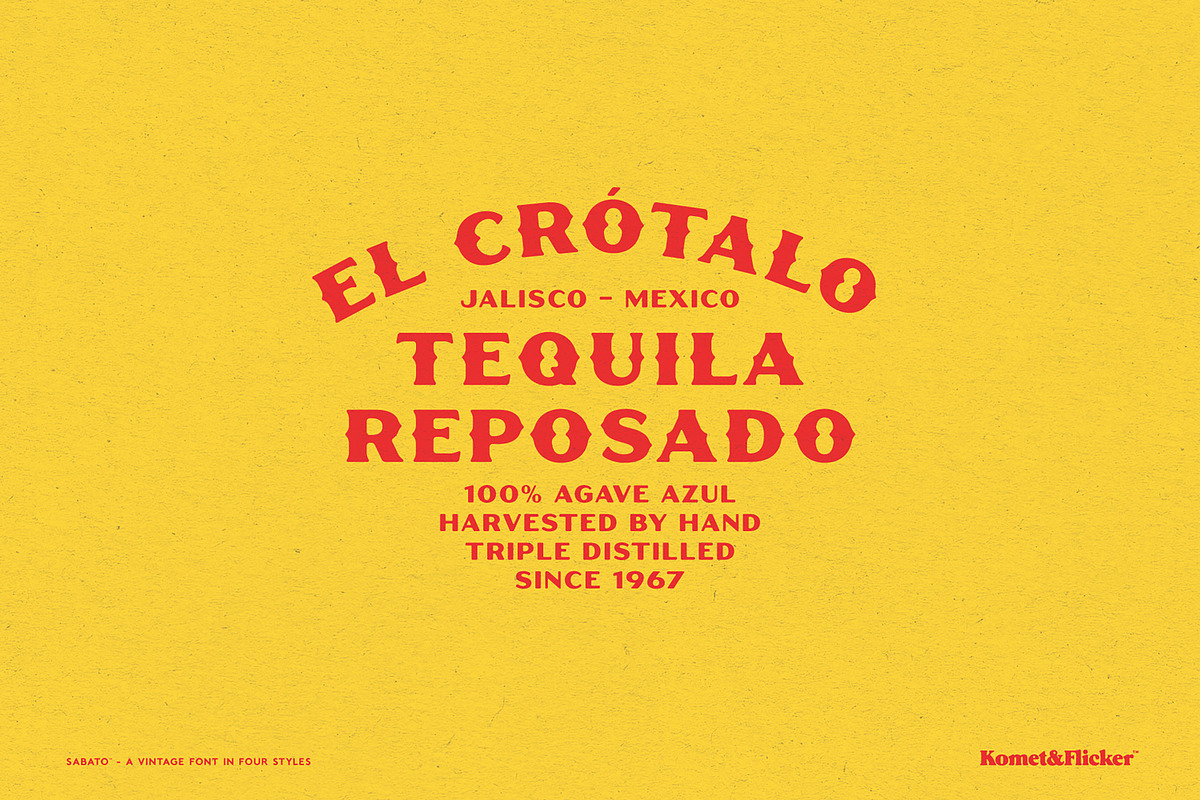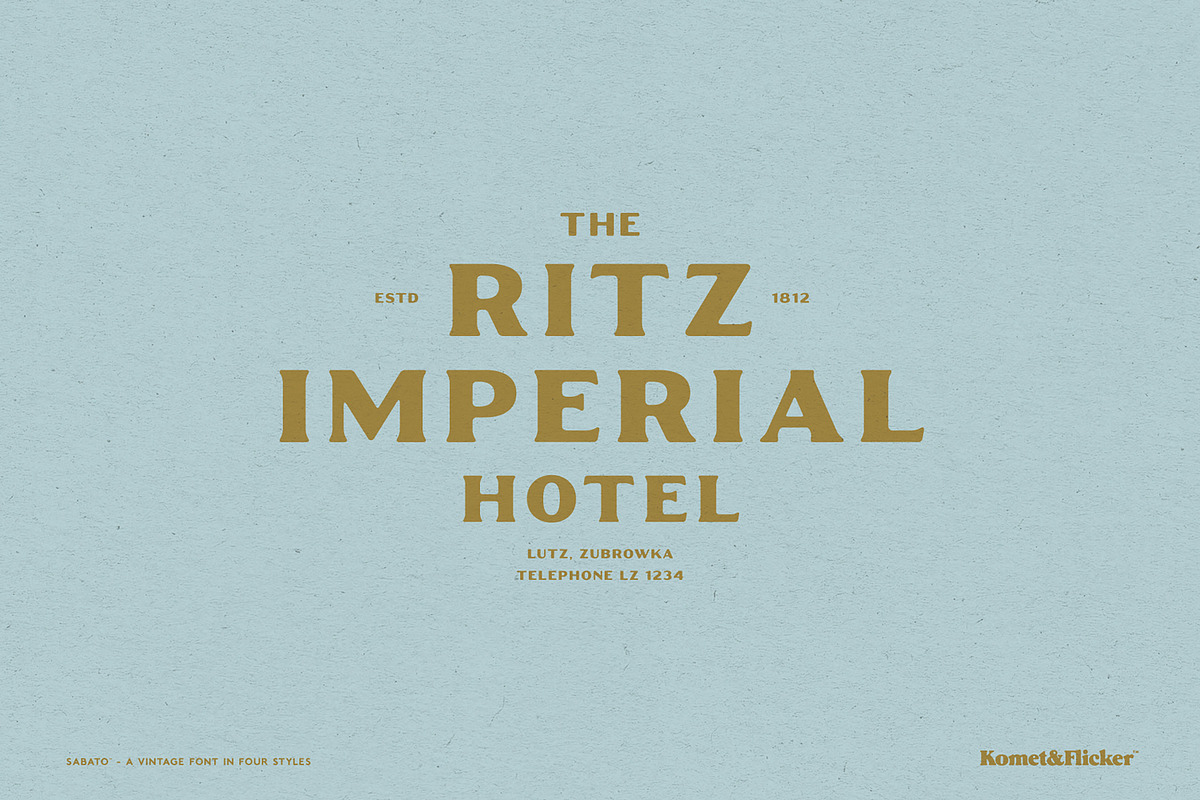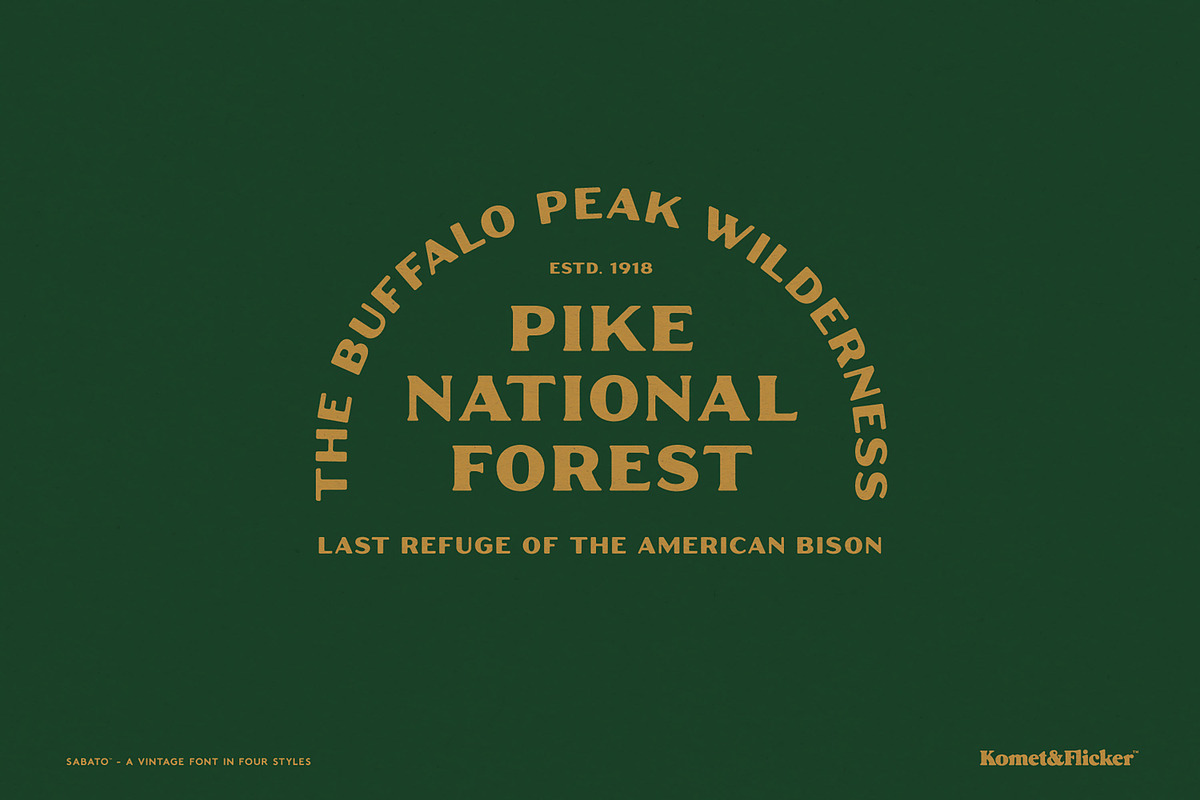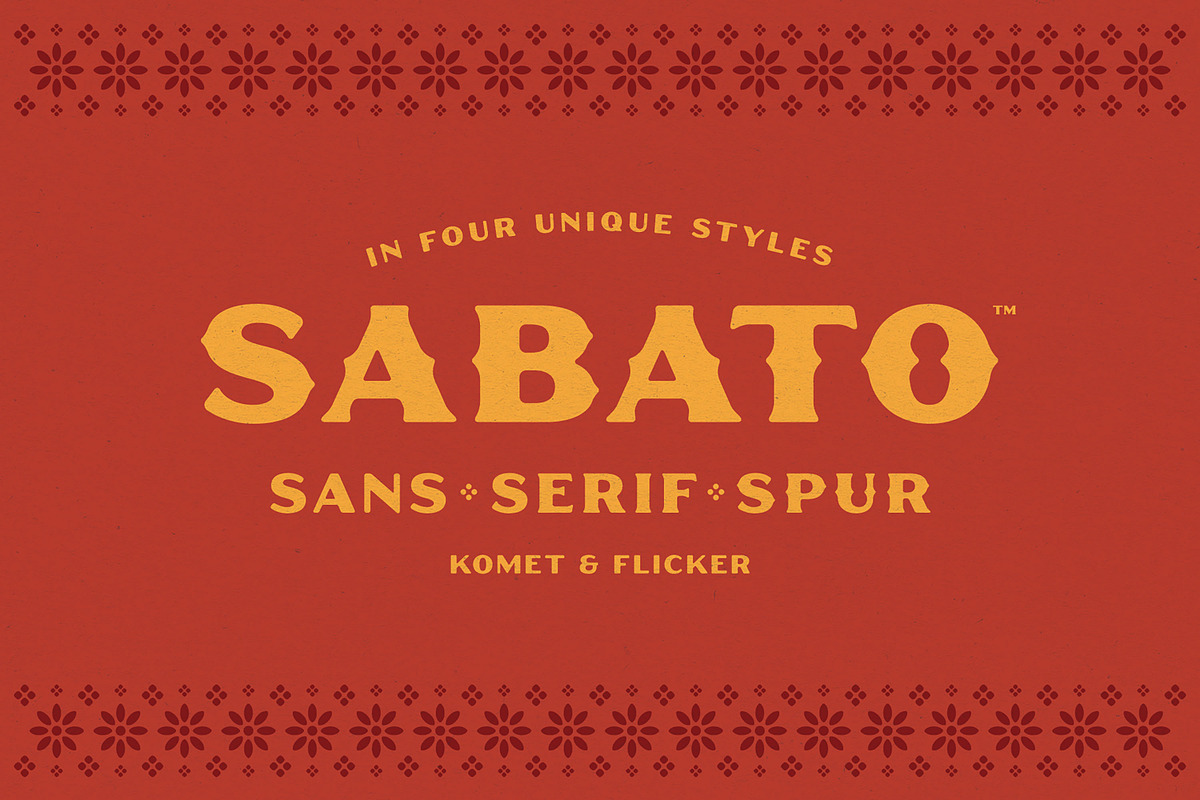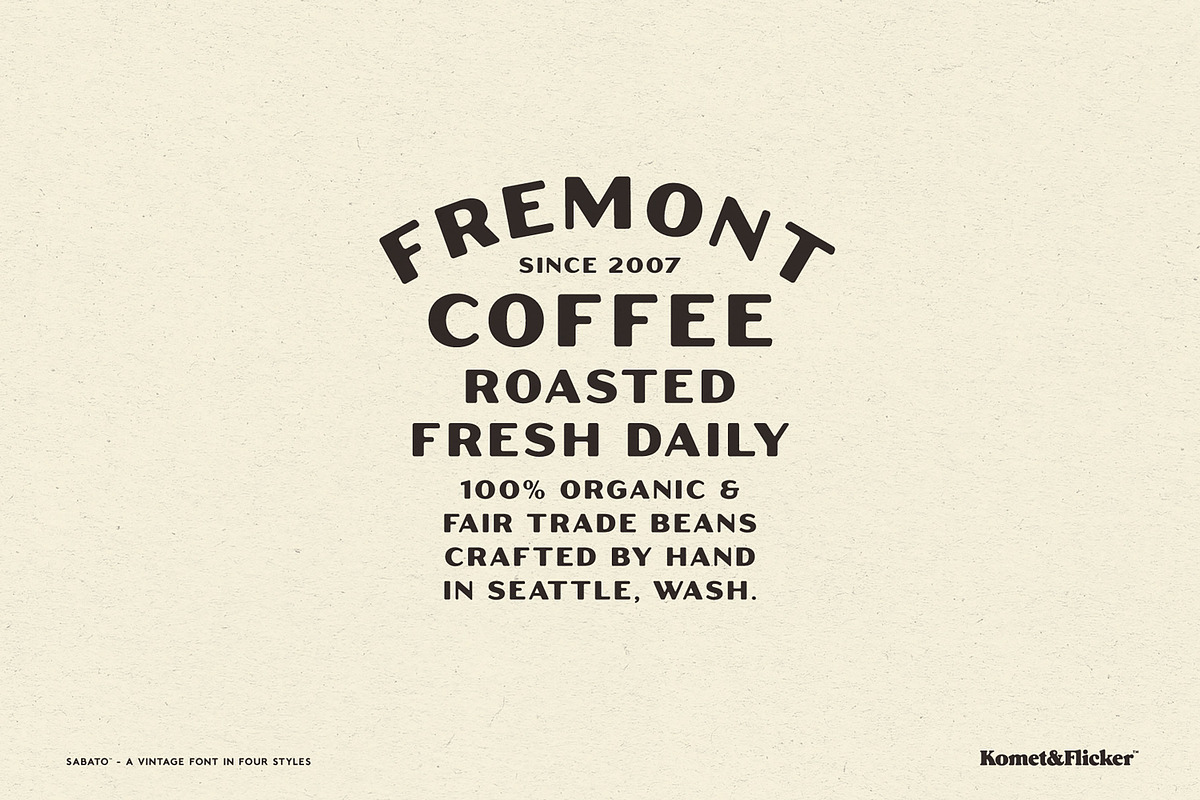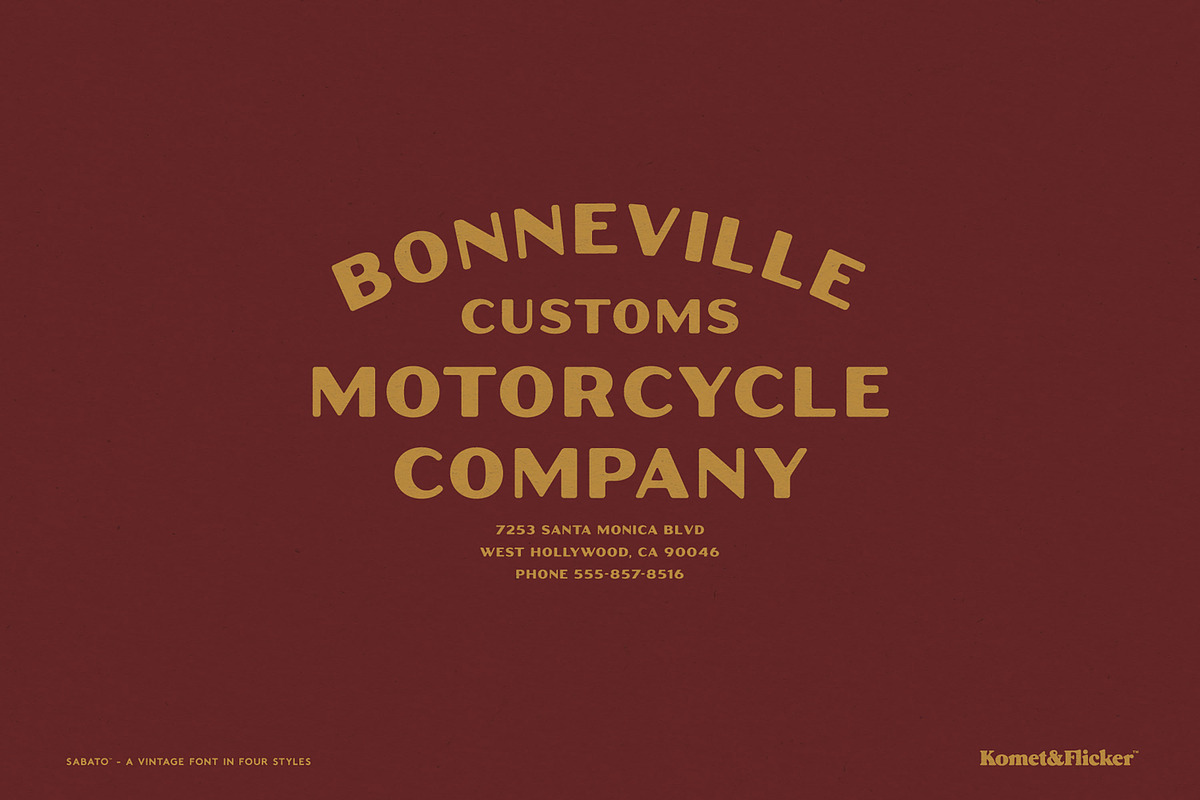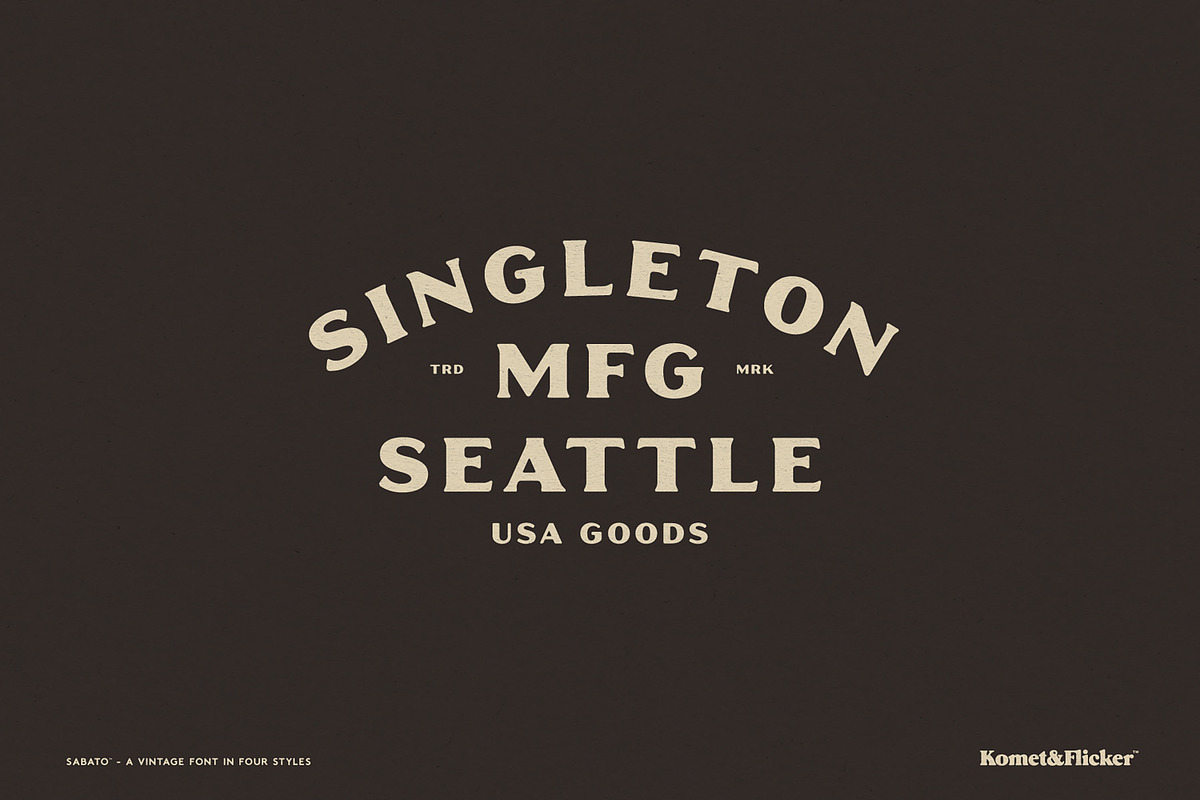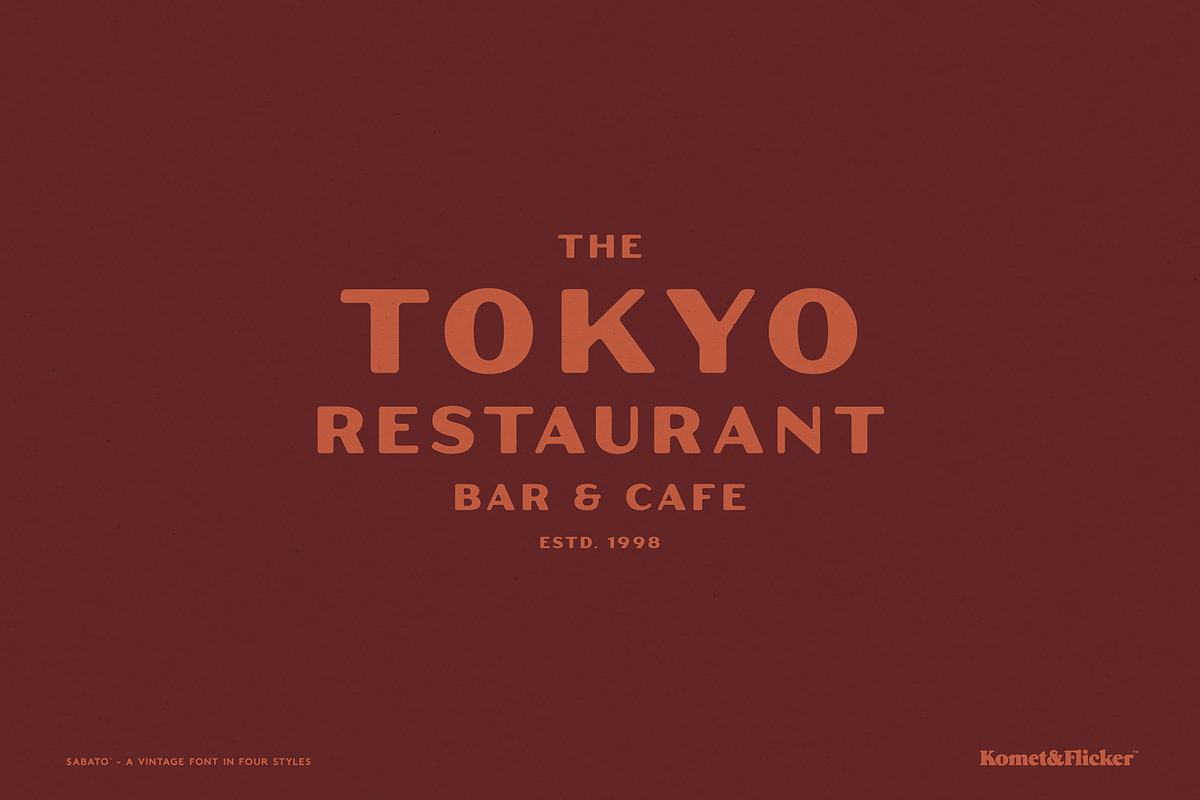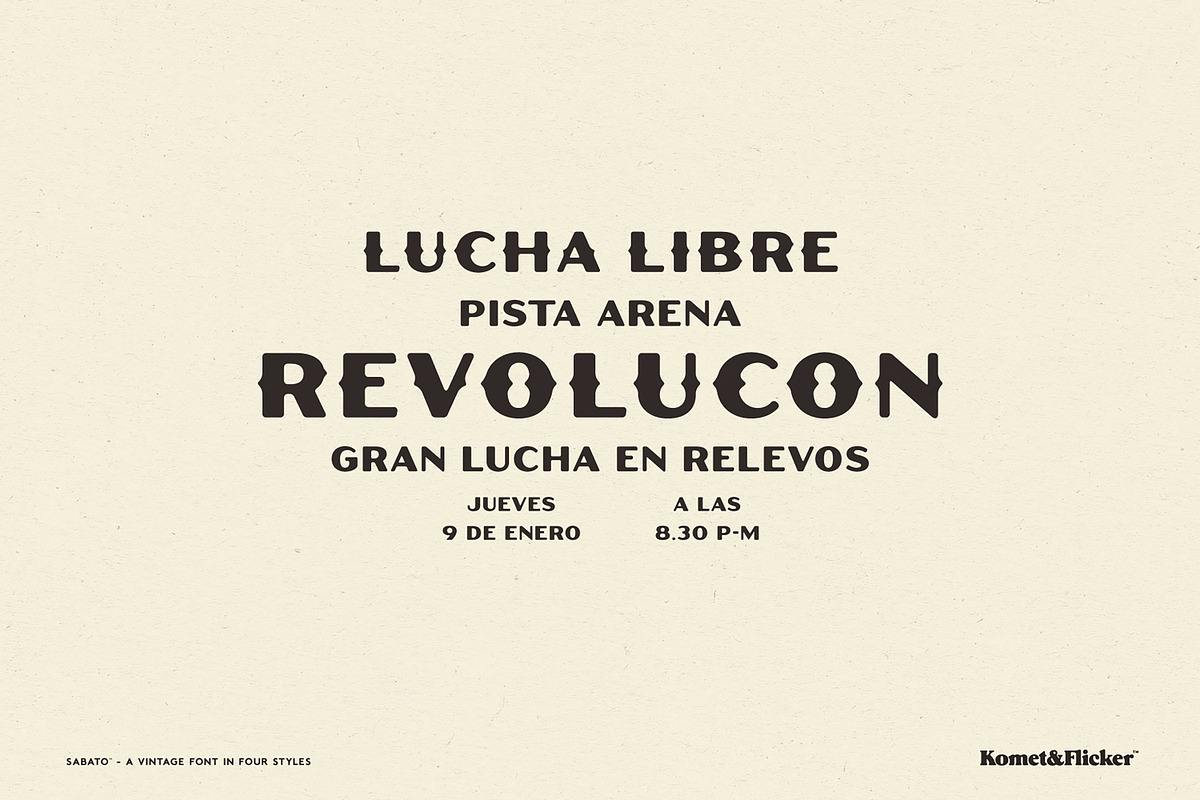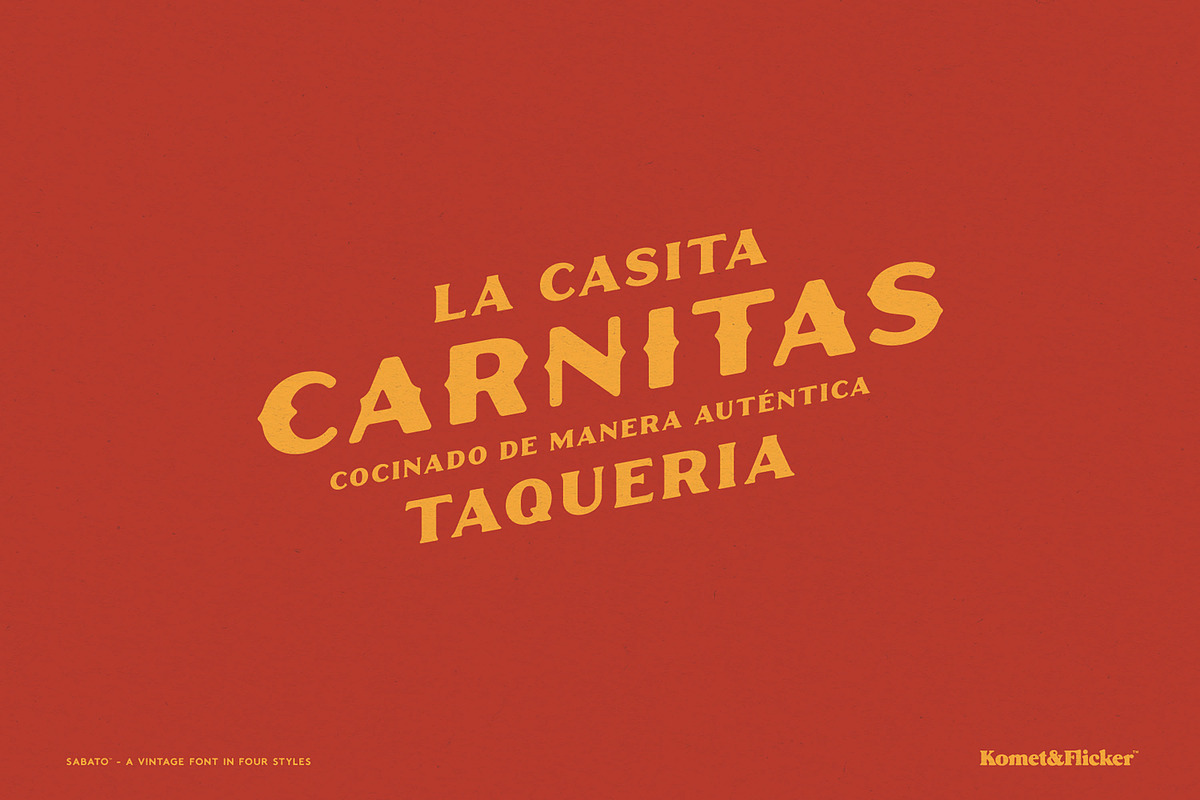
Sabato – Sans & Serif in Four Styles
Sabato is an all-caps vintage style font that brings the warmth and character of south-of-the-border lettering to your designs. Inspired by the vibrant typography found on Latin American shopfronts and street markets, Sabato captures an authentic, everyday charm that feels familiar and full of personality.
This font family comes in four complementary styles, a serif and a sans serif – both with and without spurs – giving you the flexibility to mix and match styles depending on your communication needs. Its classic, approachable feel makes it perfect for branding, logos, packaging, posters, menus, and any design that benefits from a human touch. Sabato also includes a set of 12 custom connecting words, such as and, the, and with, to seamlessly link phrases and add extra character to your layouts.
Expressive and rooted in tradition, Sabato is made to stand out while staying effortlessly readable.
THIS FONT COMES IN FOUR STYLES
Sabato Sans
Sabato Sans Spur
Sabato Serif
Sabato Serif Spur
Set of 12 custom connecting word glyphs
Set of 10 Mexican folk art inspired dingbats